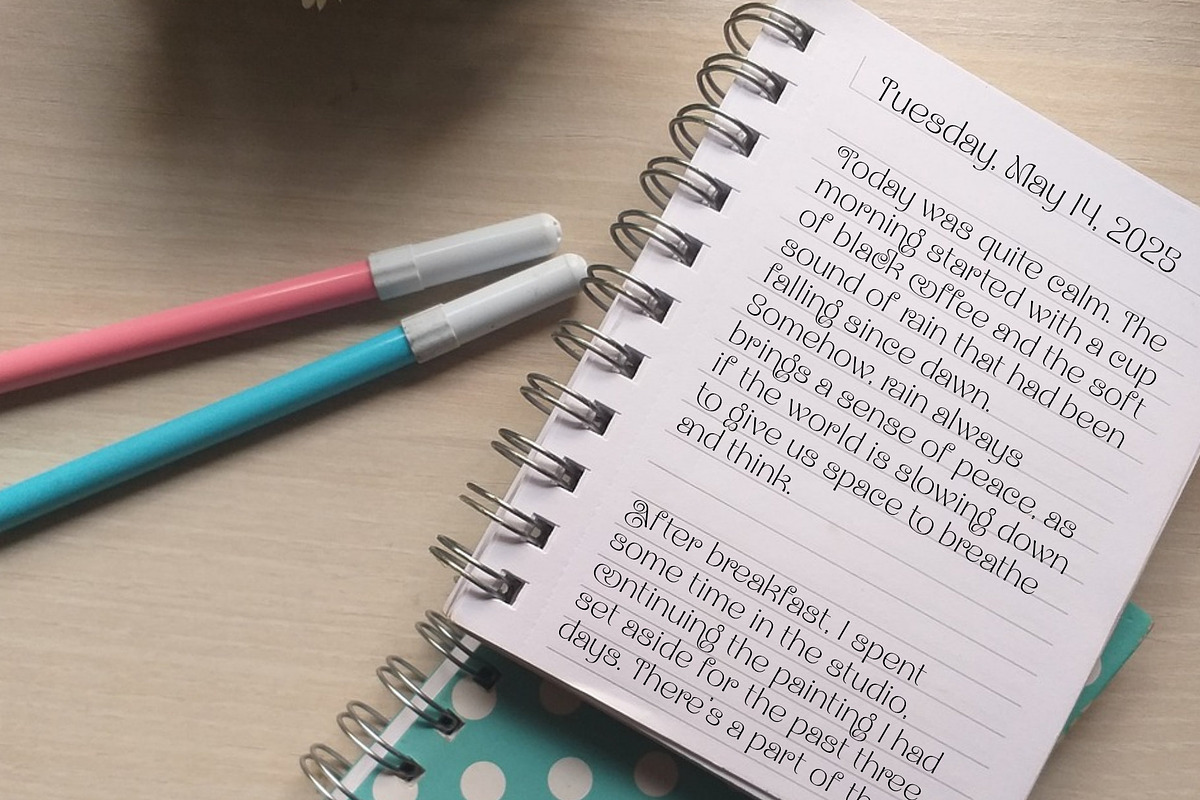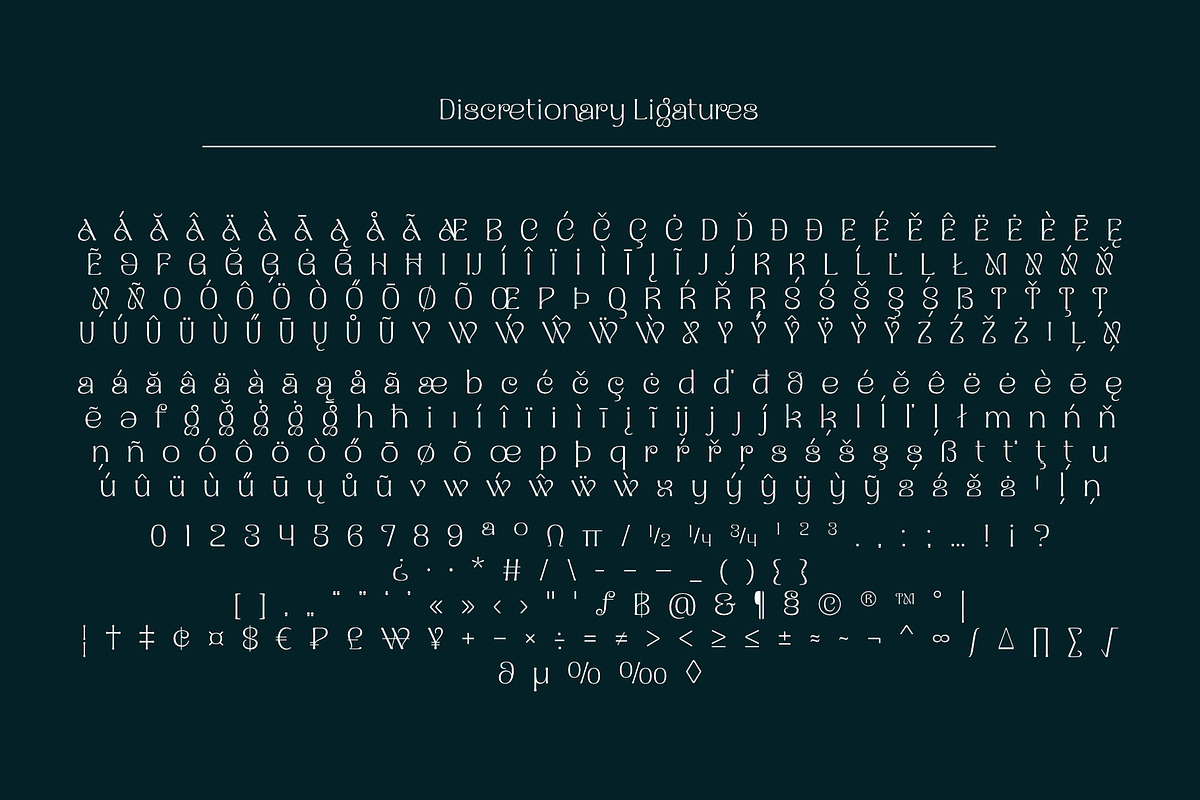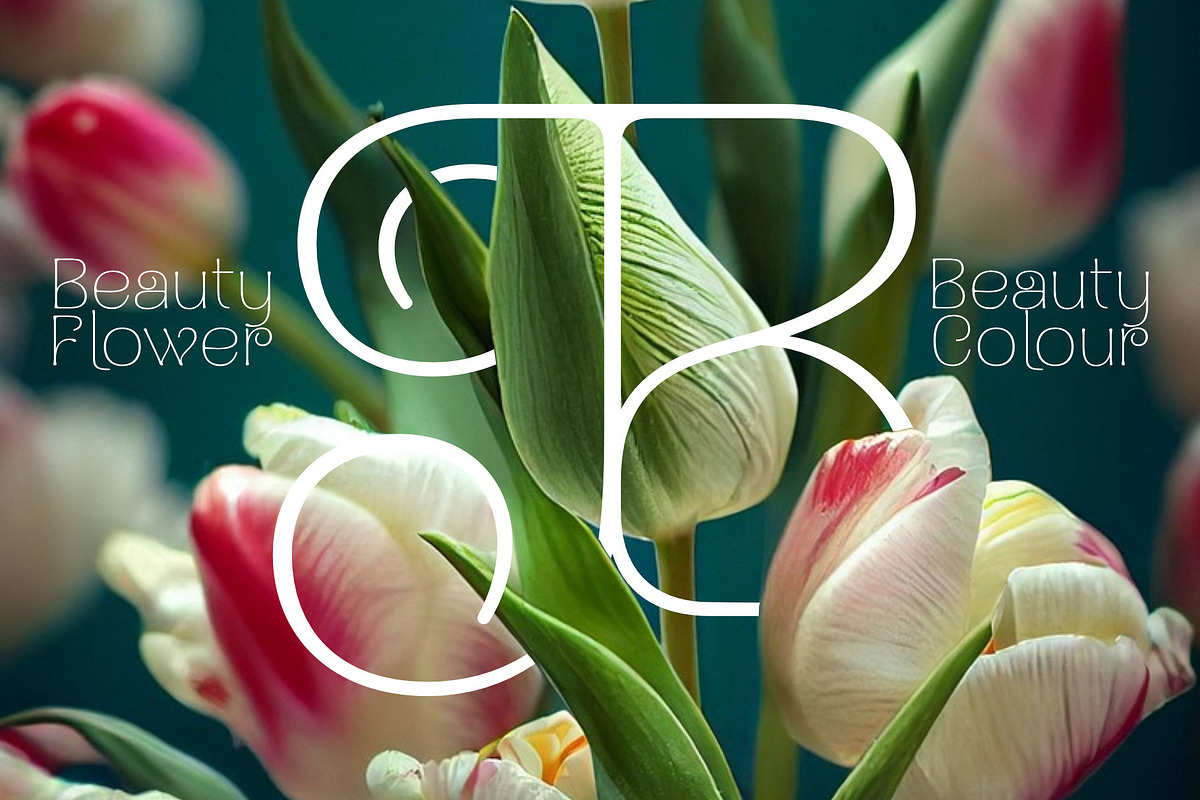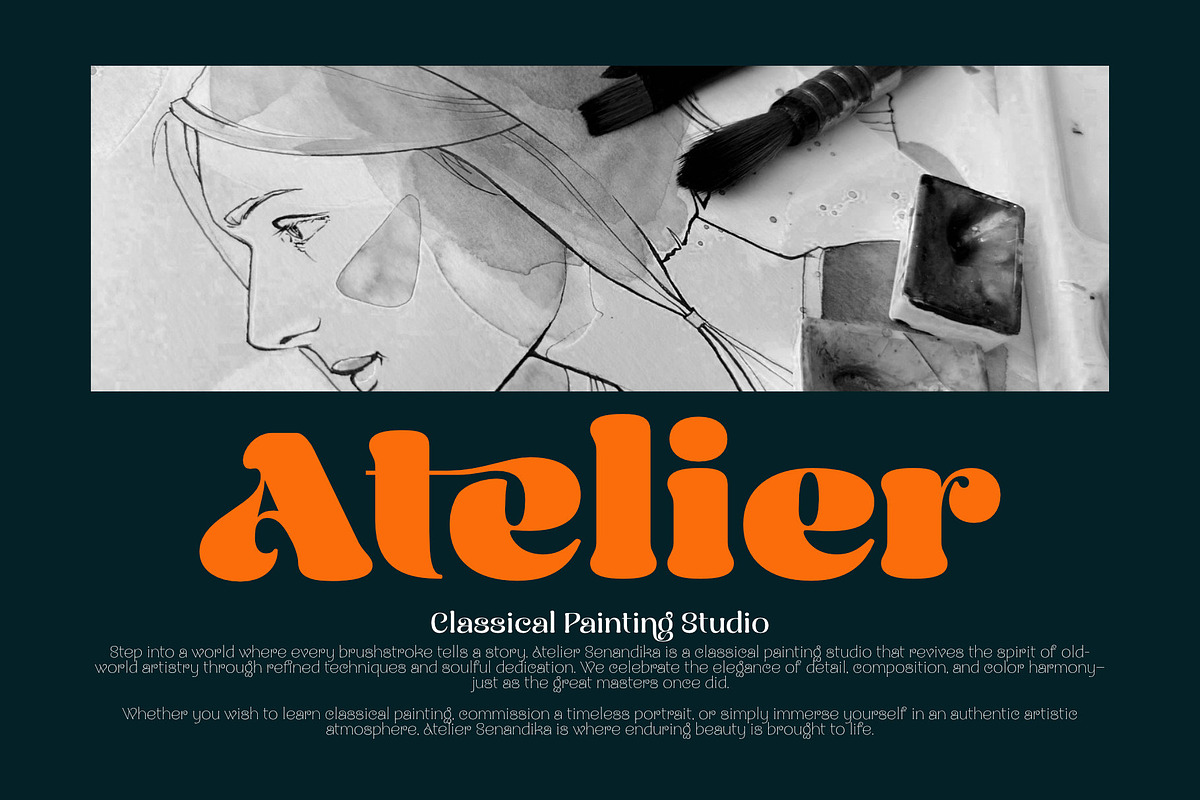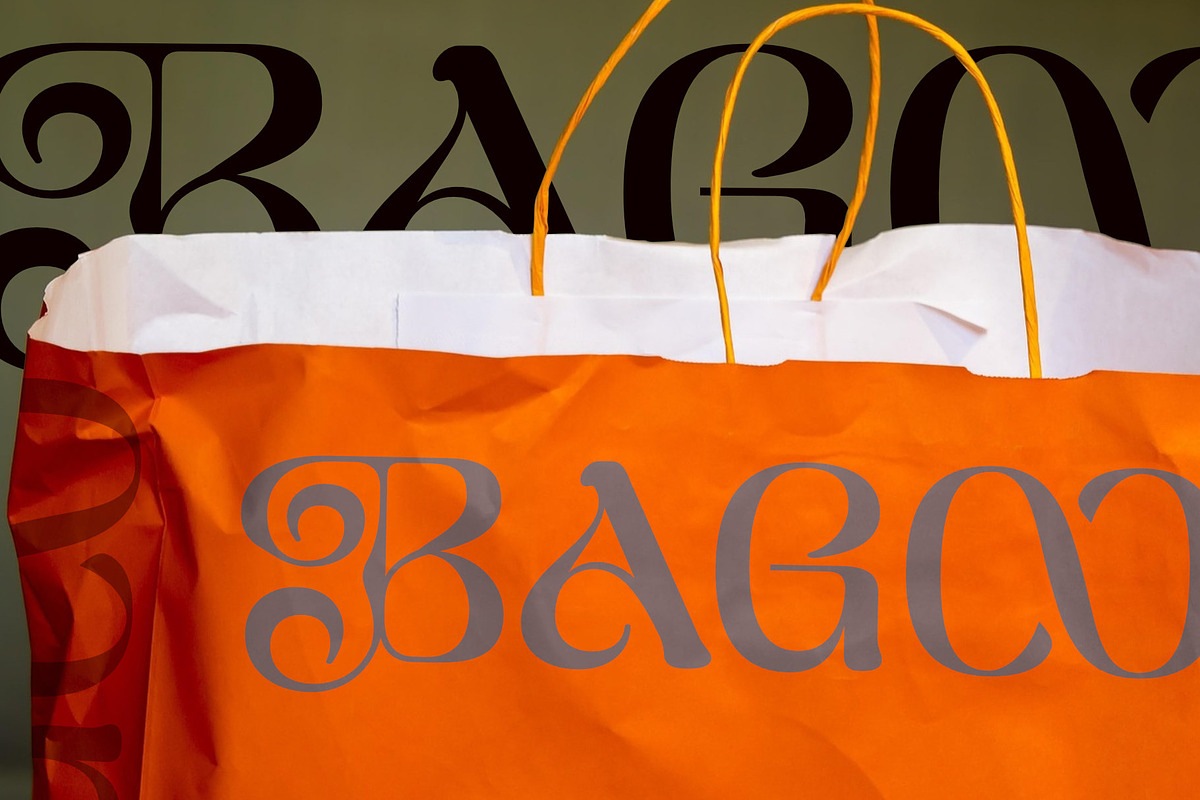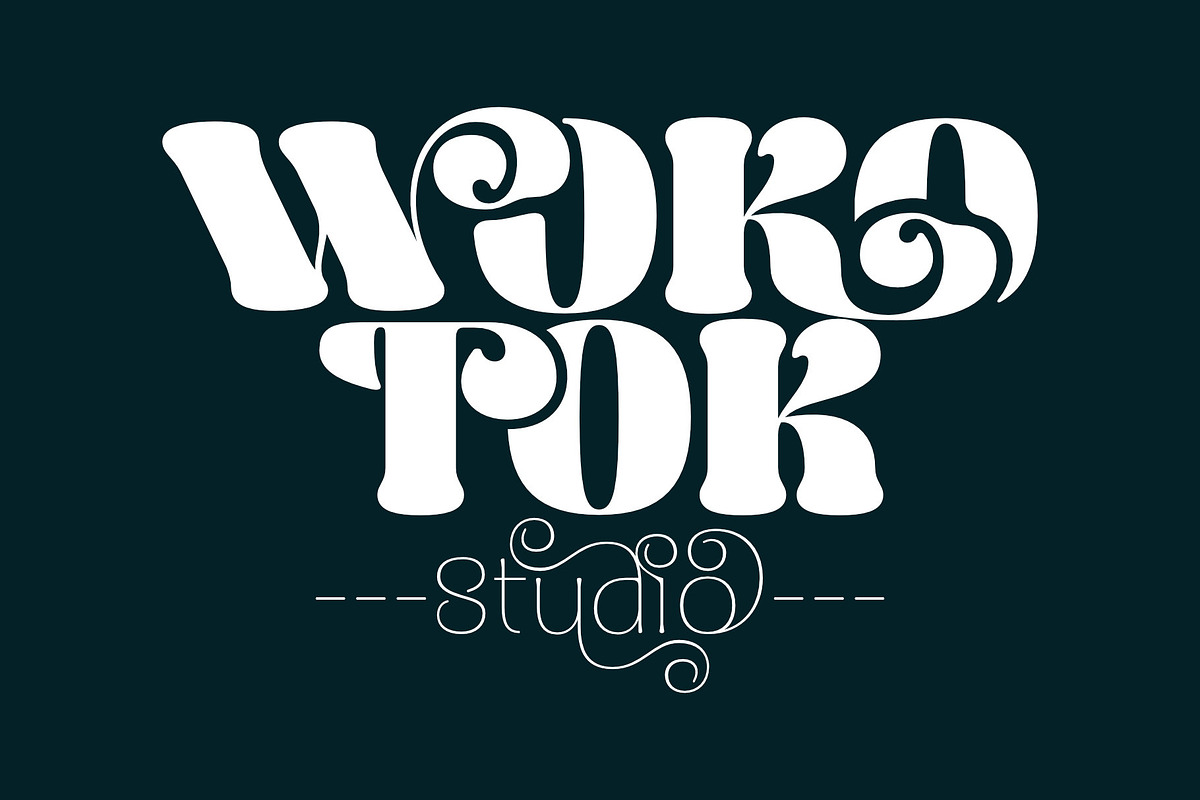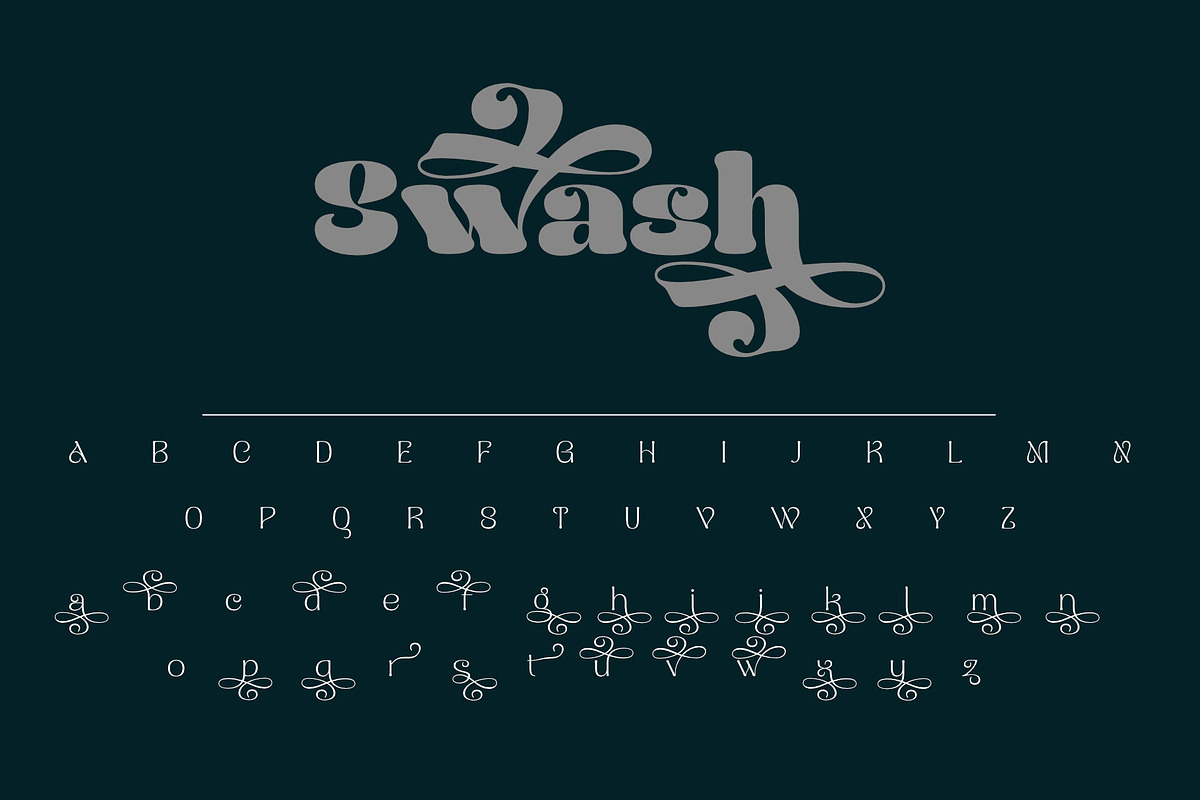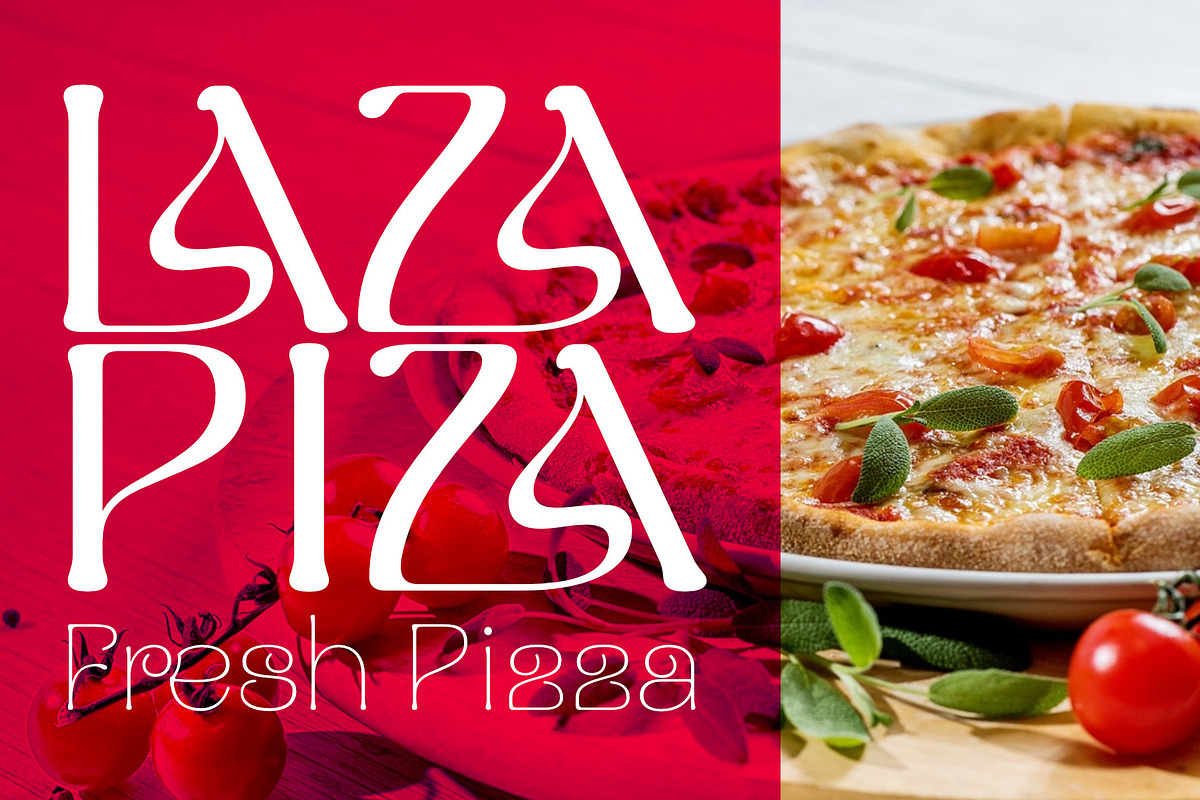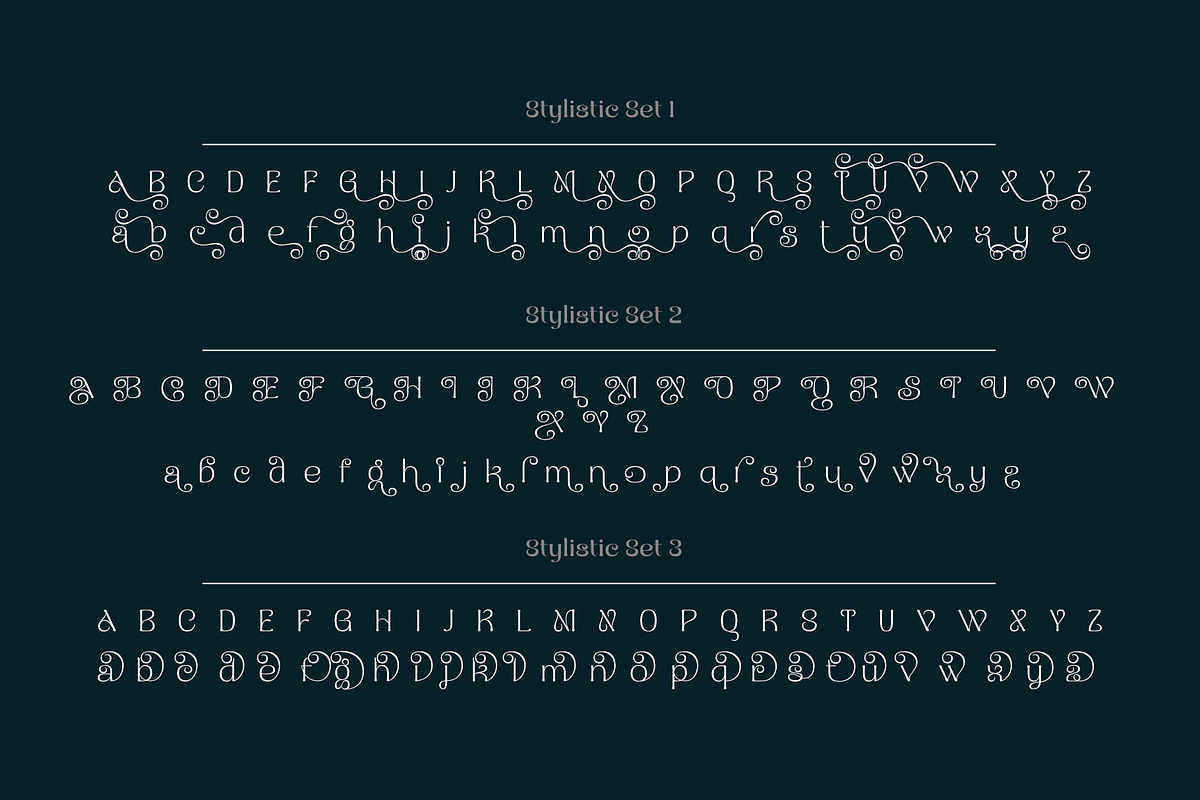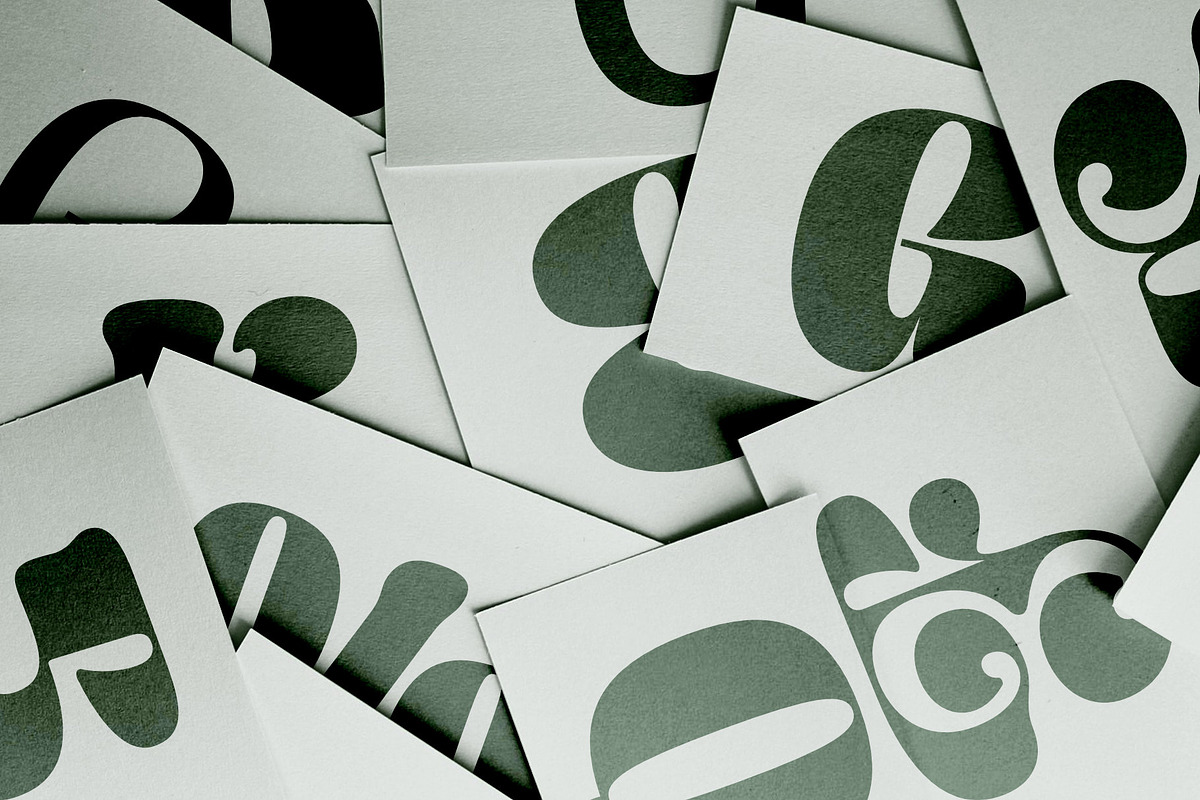
Naylira Modern Beauty Serif Font
NAYLIRA – MODERN BEAUTY SERIF FONT FOR ELEGANT BRANDING
Naylira is a modern beauty serif font crafted to bring timeless elegance and sophistication to your creative projects. Featuring graceful curves, high contrast strokes, and delicate details, Naylira is designed to elevate any design that calls for luxury, femininity, and refinement.
Naylira perfect for a wide range of uses, including beauty branding, fashion editorials, wedding invitations, social media graphics, and luxury product packaging. Whether you’re designing for a skincare line, a boutique fashion label, or a premium lifestyle brand, Naylira adds a refined touch that sets your work apart.
PECIAL FEATURES
- Includes carefully crafted ligatures for smooth connections (e.g., “ff,” “fi,” “tt,” and more), ensuring visual harmony in typography.
Swash
- Yes, Naylira features stylized swashes on select letters, adding a touch of style to standout headers or logos.
Stylistic Sets
- Offers alternative letterforms and creative variations for select characters, providing flexibility for unique and artistic designs.
- Fully supports non-Latin characters and a variety of scripts, This extensive language support, combined with stylistic versatility, makes Naylira perfect for global and diverse design projects
Two Alternate Styles
Its flexibility and beauty make Naylira a favorite among designers looking for a luxury serif font that is both modern and versatile. The thoughtfully designed characters ensure perfect harmony in headlines, logos, packaging, and branding assets.
If you’re searching for a serif font with ligatures and stylistic sets, Naylira is the ideal choice. It’s not just a typeface—it’s a statement of style and grace.